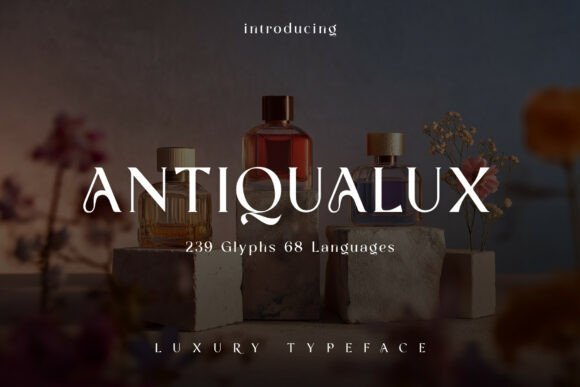
Elevate Your Design with the Ultimate Luxury Font
Have you ever been browsing through a high-end fashion magazine or a luxurious beauty brand’s website, and you’re immediately drawn to the refined typography that exudes elegance and sophistication? You’re not alone. The right typeface can make all the difference in creating an unforgettable visual experience that leaves a lasting impression on your audience. That’s where the Antiqualux Font comes in – a luxurious and impeccably crafted typeface designed to elevate your design projects to new heights.
With its 239 beautifully designed glyphs and support for 68 languages, the Antiqualux Font is the perfect tool for designers who demand refinement and high-end appeal. Whether you’re working on a cosmetic company’s branding, a luxury fashion house’s packaging, or a modern boutique’s magazine, this typeface is sure to add a level of polish and sophistication that sets you apart from the rest.
- Unique Characteristics: This font features a unique blend of classical and modern elements, with intricate details and ornaments that set it apart from other serif fonts.
Design Review: Antiqualux Font
I recently had the chance to work with the Antiqualux font, and I must say, it’s a beautiful addition to any design project. ✨ One of the things that stood out to me was its elegant and sophisticated look. It’s perfect for creating a high-end, luxurious feel in your designs.
Here are some of the things that I think work well with the Antiqualux font:
- ✨ Elegant and sophisticated look: As I mentioned earlier, the Antiqualux font has a beautiful, high-end feel that’s perfect for luxury brands or designs that want to convey a sense of sophistication.
- ✨ Versatile: The Antiqualux font is incredibly versatile and can be used in a variety of design projects, from logos to typography-heavy designs.
- ✨ Easy to read: Despite its elegant look, the Antiqualux font is still easy to read and understand, making it a great choice for designs where legibility is important.
- ⚠️ Limited character set: The Antiqualux font has a limited character set, which may make it difficult to use in languages that require a wider range of characters.
- ⚠️ Not ideal for body text: While the Antiqualux font is great for headings and titles, it may not be the best choice for body text due to its elegant, high-end feel, which can be overwhelming for large blocks of text.
Overall, I think the Antiqualux font is a great addition to any designer’s toolkit. While it may have a few limitations, its elegant and sophisticated look makes it a great choice for a wide range of design projects.
Getting the Most Out of Antiqualux Font
For the best results, use Antiqualux font in conjunction with high-quality images and a clean design aesthetic.
– Use bold and italic styles to add emphasis to your text.
– Experiment with different font sizes to create visual interest.
Antiqualux font is ideal for:
– Designing vintage-inspired graphics and logos.
– Creating elegant and sophisticated presentations and documents.
– Adding a touch of luxury to your branding and marketing materials.